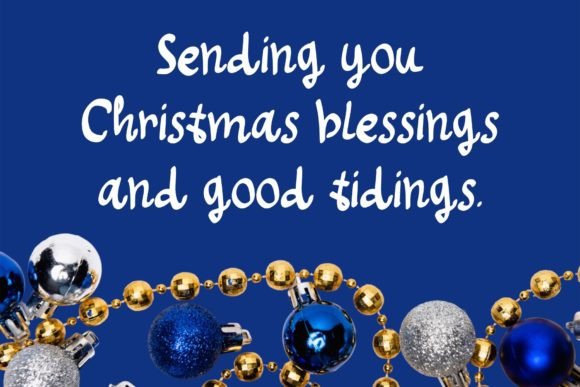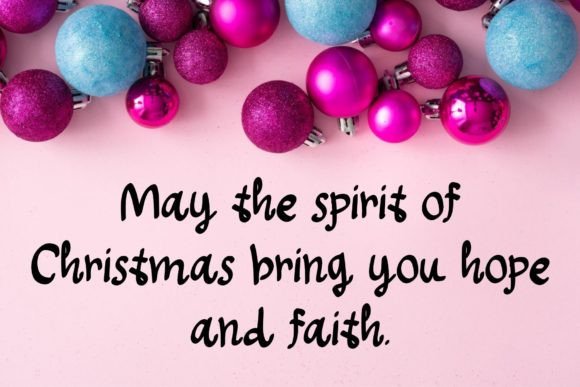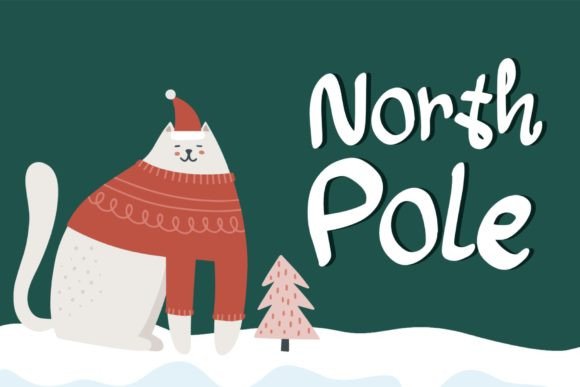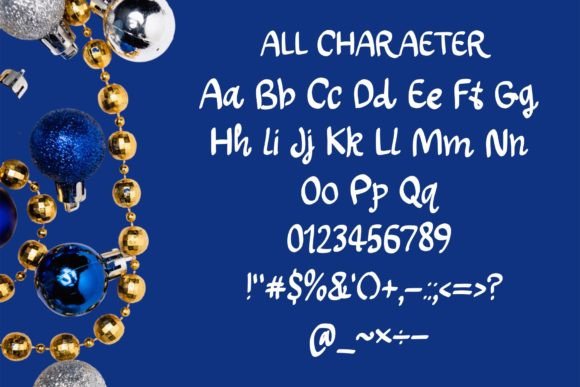
Introduction to North Pole Font Font
Fonts play a crucial role in design, and the North Pole Font font is a typeface that brings both character and versatility to any project. Whether you’re working on a branding project, a website, or a print design, the North Pole Font font offers a unique style that can elevate your work.
Introducing North Pole Font.
Step into a world of holiday magic and whimsy with this enchanting typeface Inspired by the charm and wonder of the North Pole, it brings a sense of joy and excitement to your designs.
Key Features of North Pole Font Font
Why Choose North Pole Font Font?
The North Pole Font font is more than just a typeface – it’s a design tool that helps you communicate your message with style and clarity. Its unique character set and versatile design make it suitable for a wide range of applications, from elegant invitations to bold headlines.
With its carefully crafted letterforms and balanced proportions, the North Pole Font font ensures readability and visual appeal across all mediums.
What makes North Pole Font font special?
The North Pole Font font stands out with its unique design, exceptional readability, and versatility across various design applications.